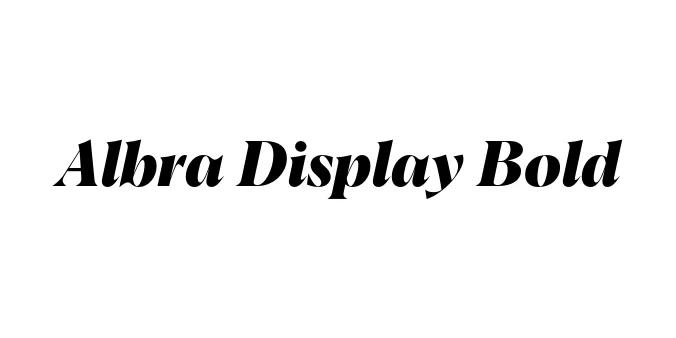
Albra Display Bold
Designed by BumBumType (Valerio Dell'Edera)
Albra Display Bold is an integral part of the Albra family, a sophisticated typeface collection that harmonizes classic serif elegance with contemporary geometric precision. This specific weight is characterized by its high-contrast strokes and sharp, refined serifs, which evoke a sense of timeless luxury and authority. Designed to bridge the gap between traditional book typography and modern display needs, it provides a versatile solution for high-end creative projects that require a strong yet graceful typographic voice.
In professional application, the font excels in environments where visual impact and legibility are paramount. Its bold architecture provides a sturdy presence, making it a preferred choice for editorial designers and brand strategists working in the fashion, beauty, and arts sectors. Whether utilized for a prestige magazine masthead or a minimalist corporate identity, Albra Display Bold delivers a distinct aesthetic personality that stands out across both digital and print media platforms.
Albra Display Bold Best Uses
Perfect for commanding attention in large-scale print and digital titles.
Excellent for creating sophisticated layouts for luxury magazines and books.
Ideal for developing high-end visual identities and elegant logo marks.
Adds a touch of classic elegance and weight to event promotions.